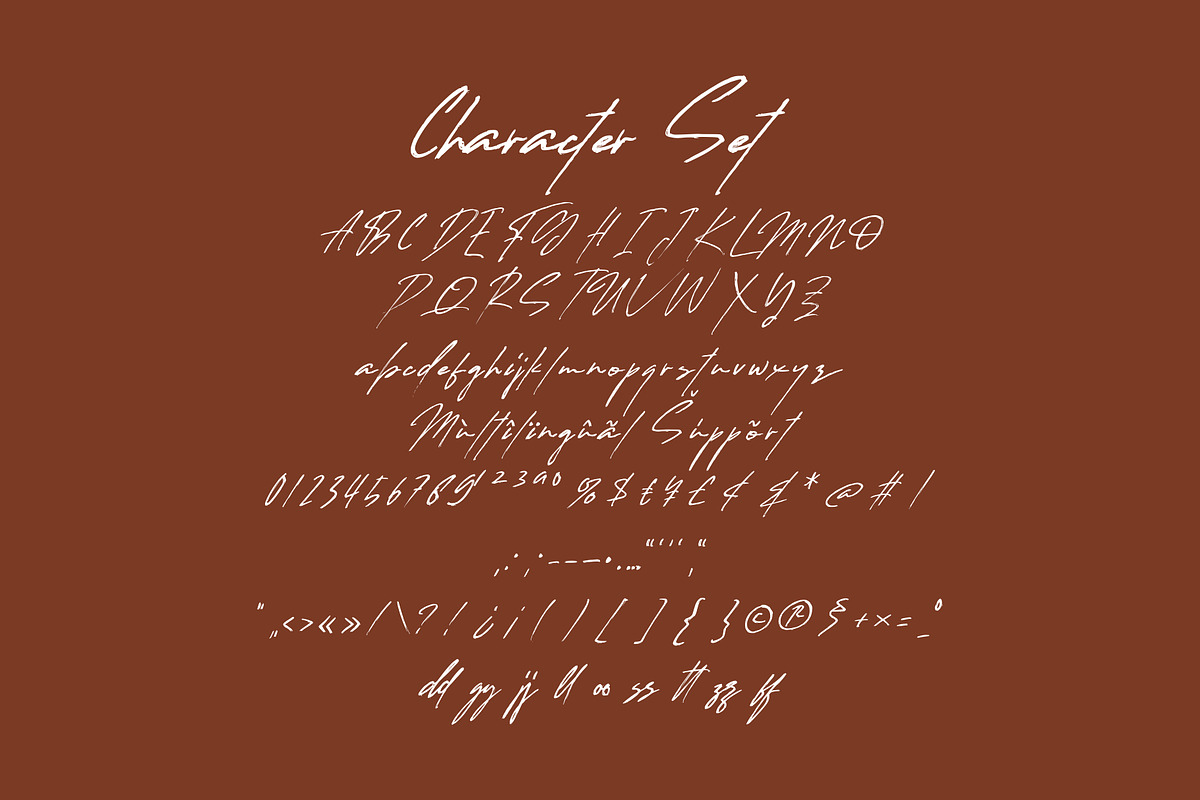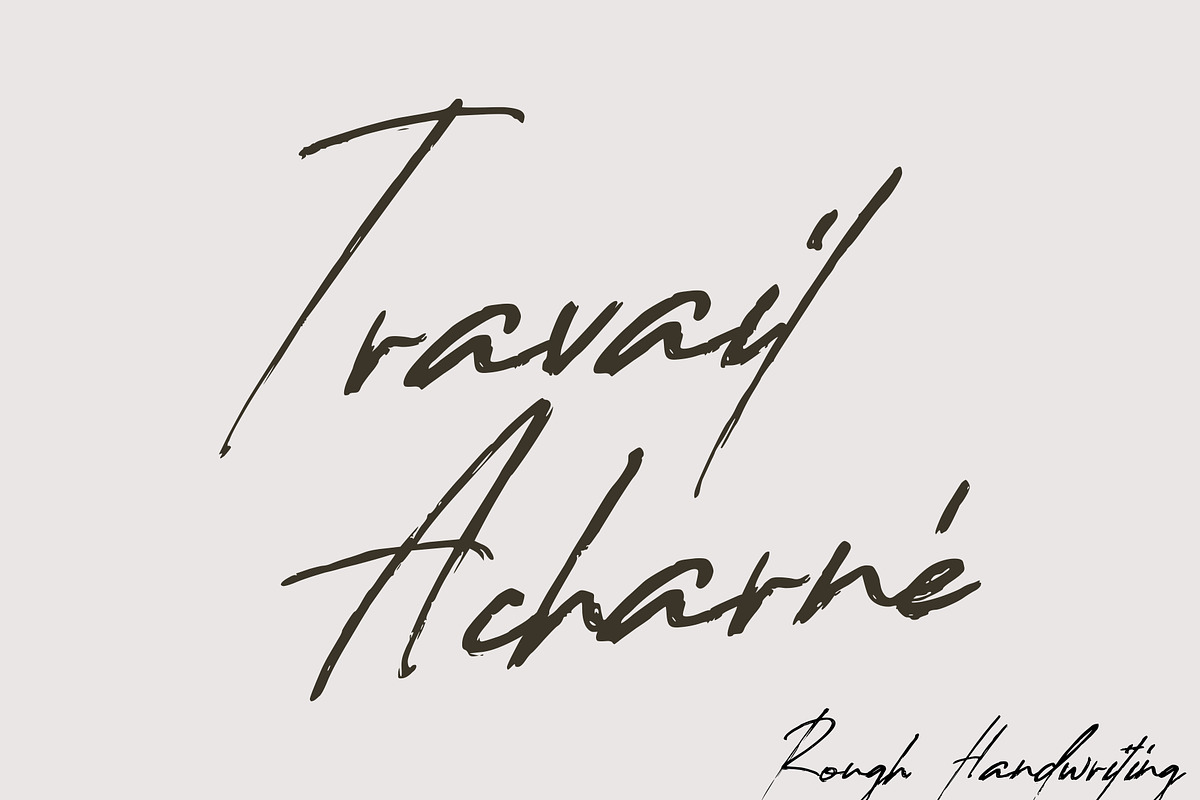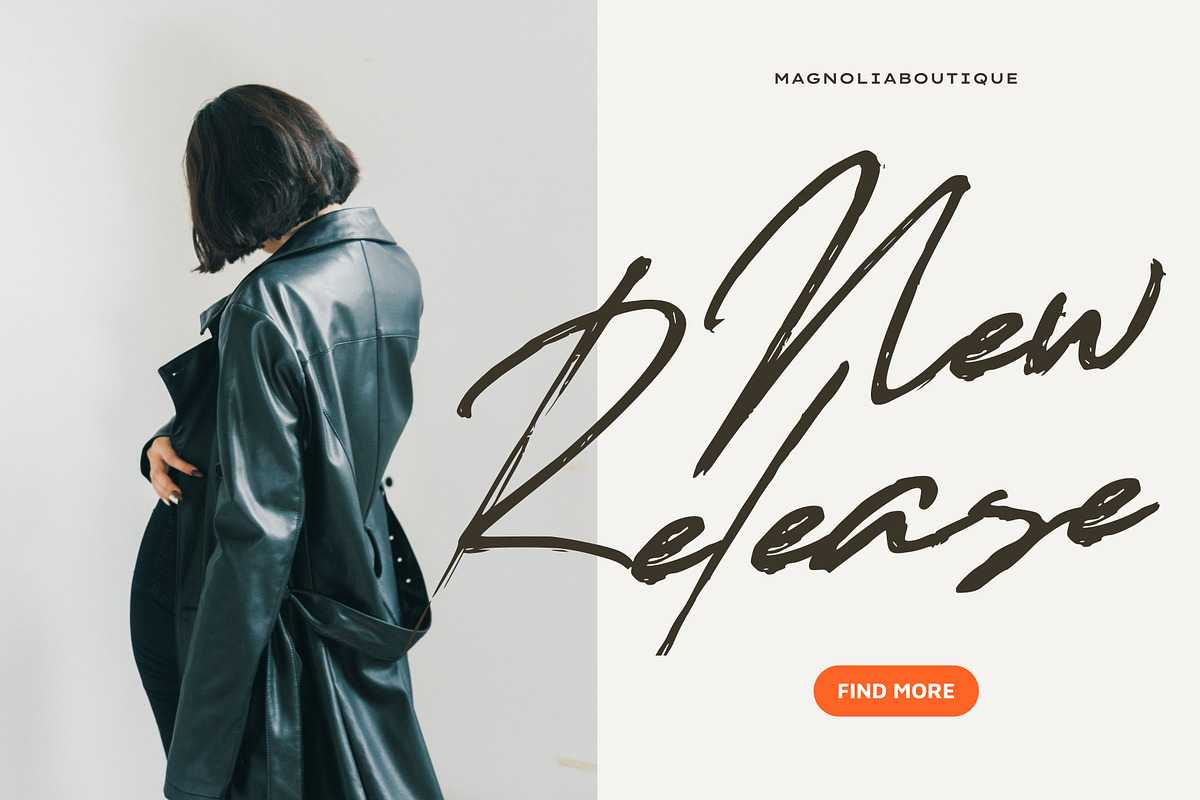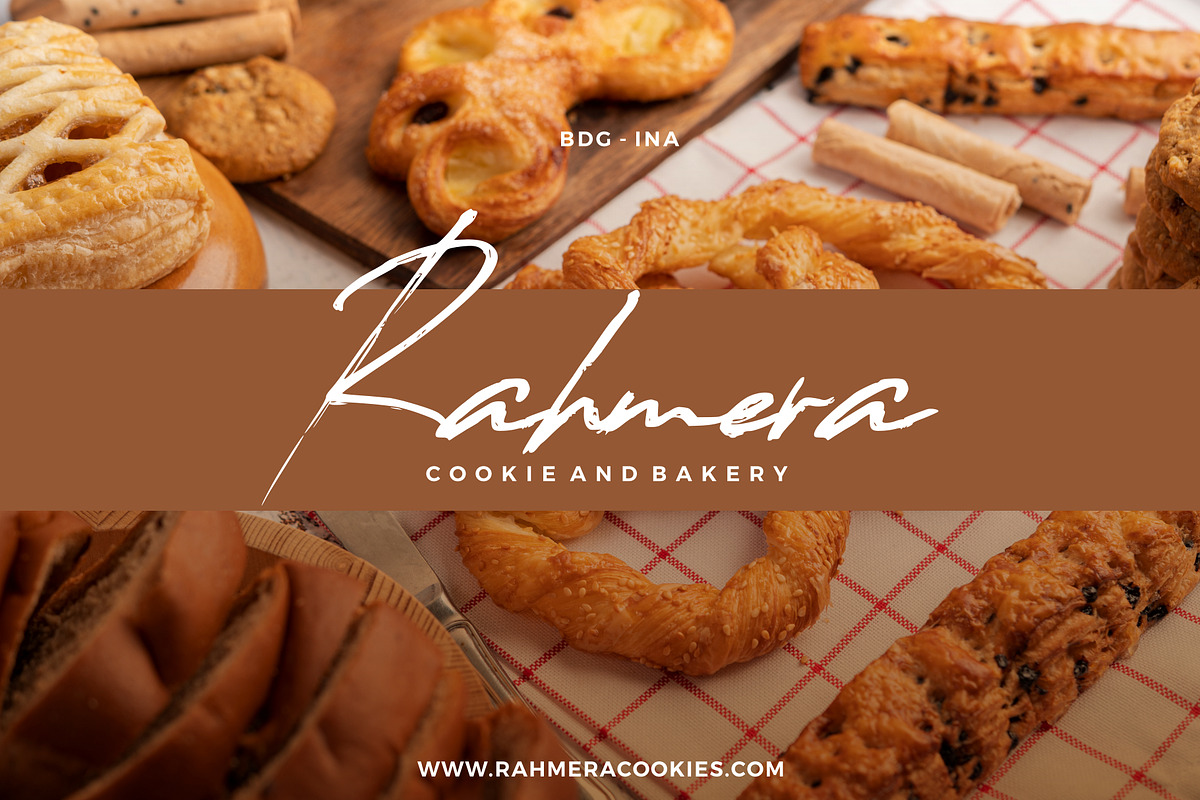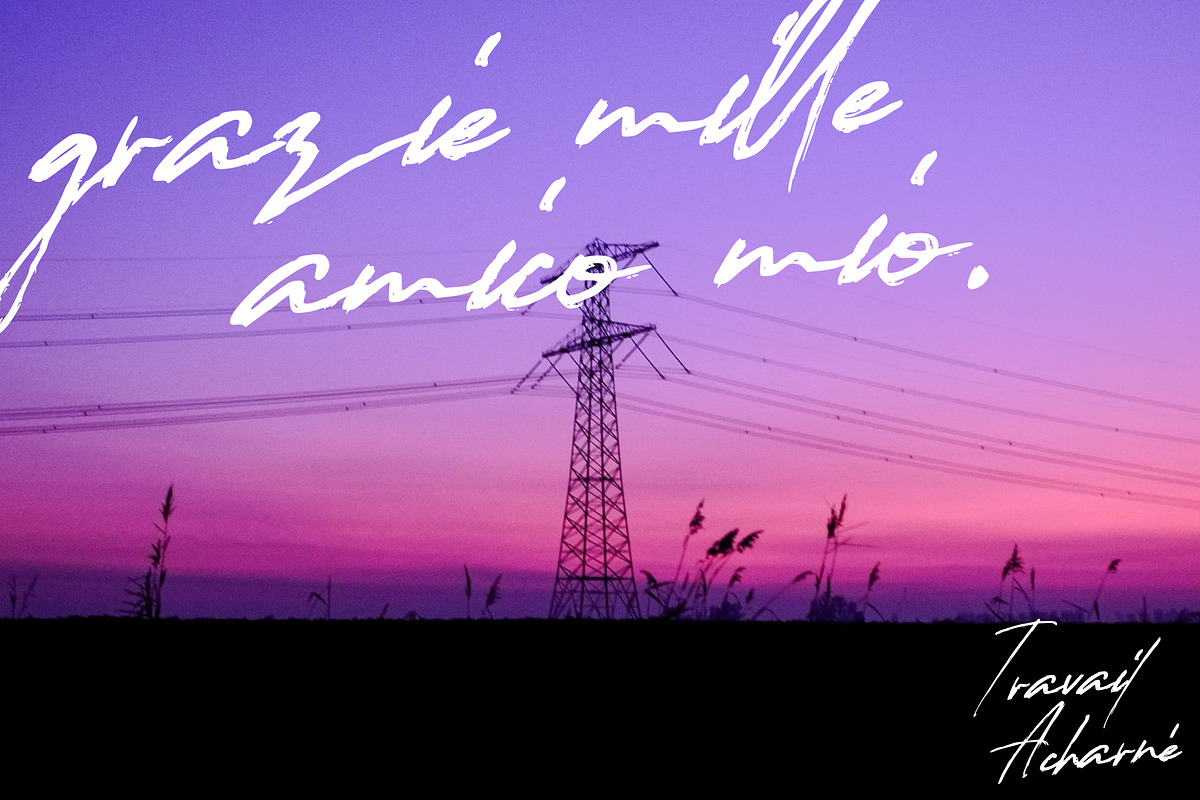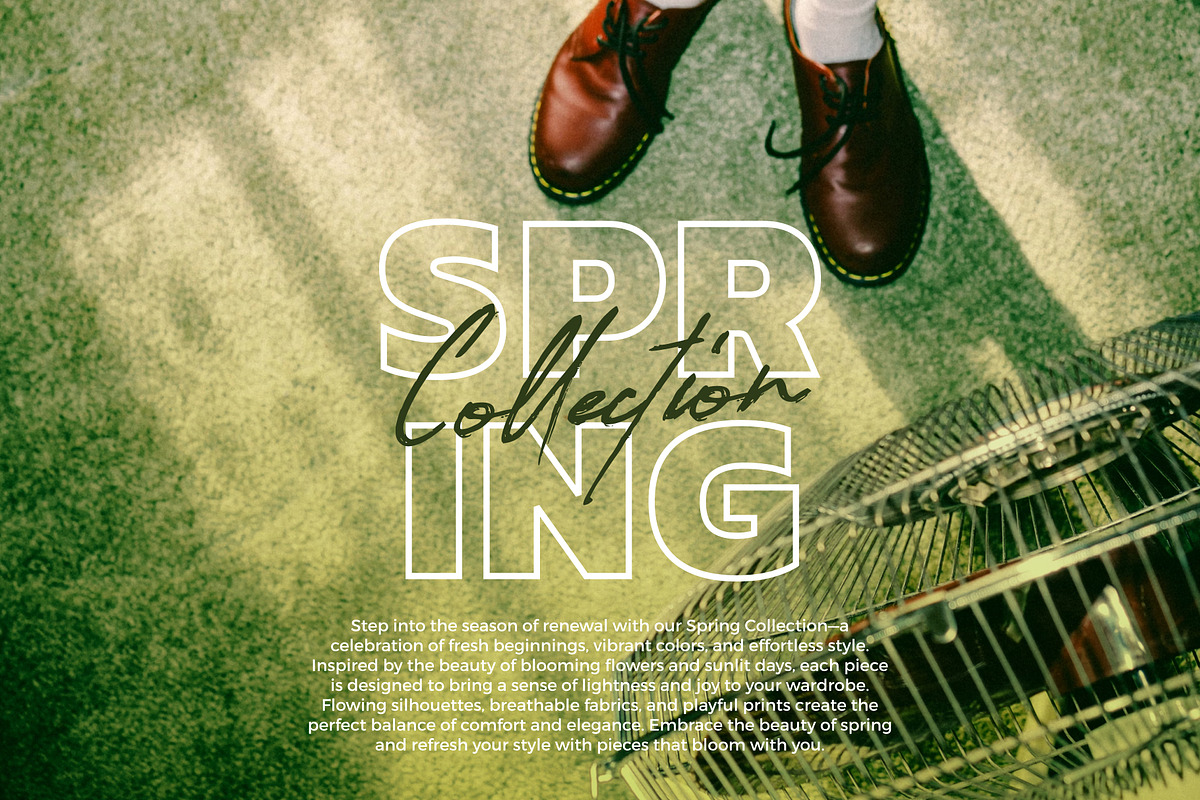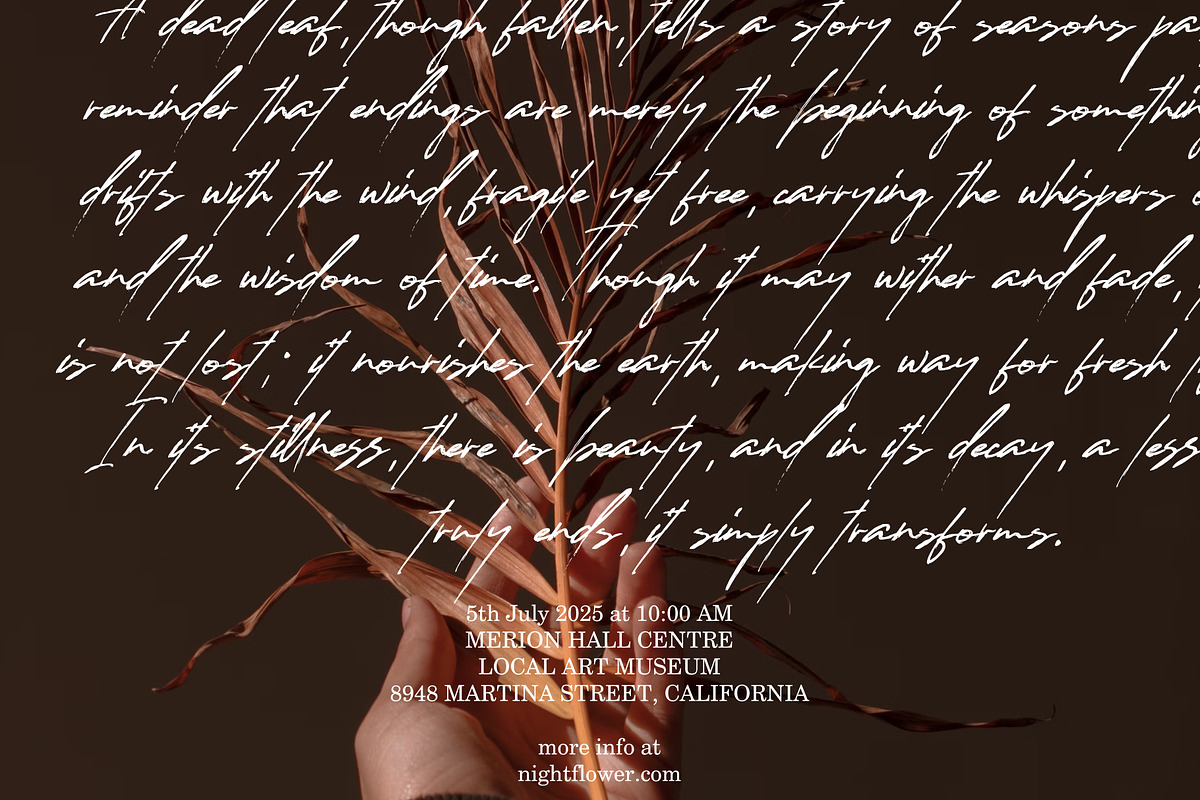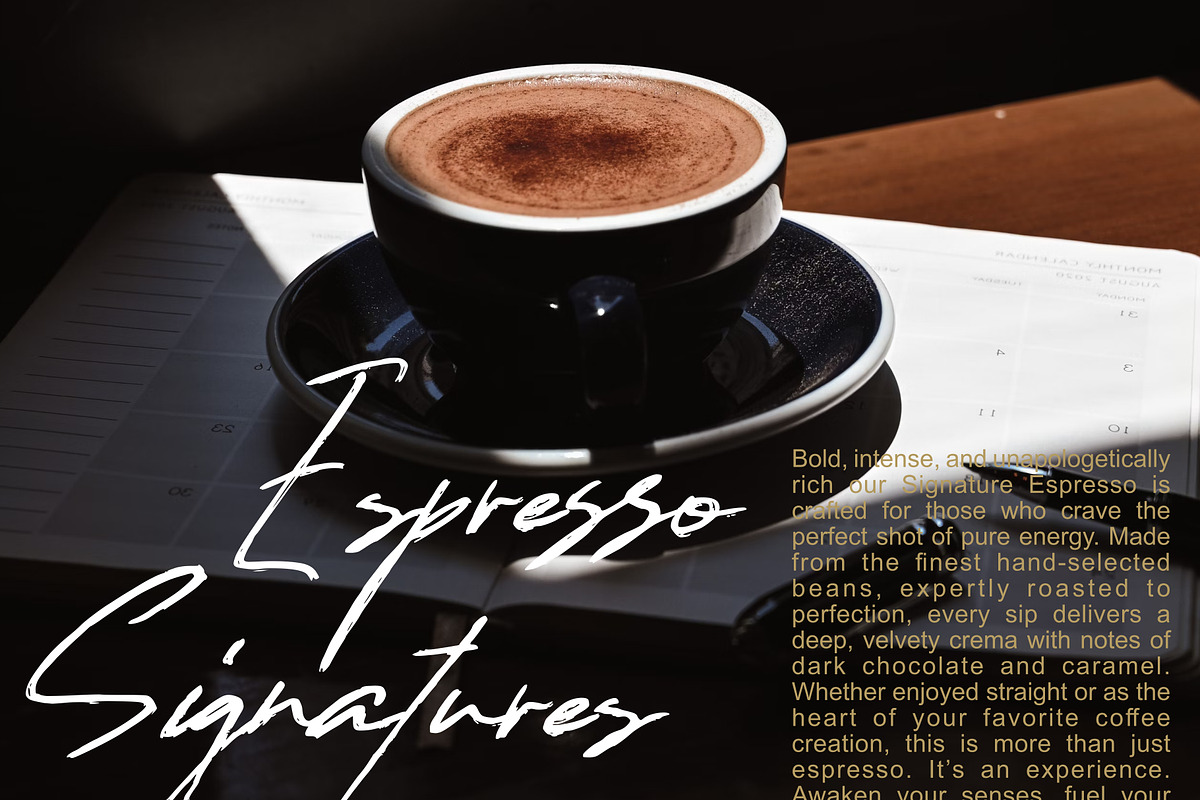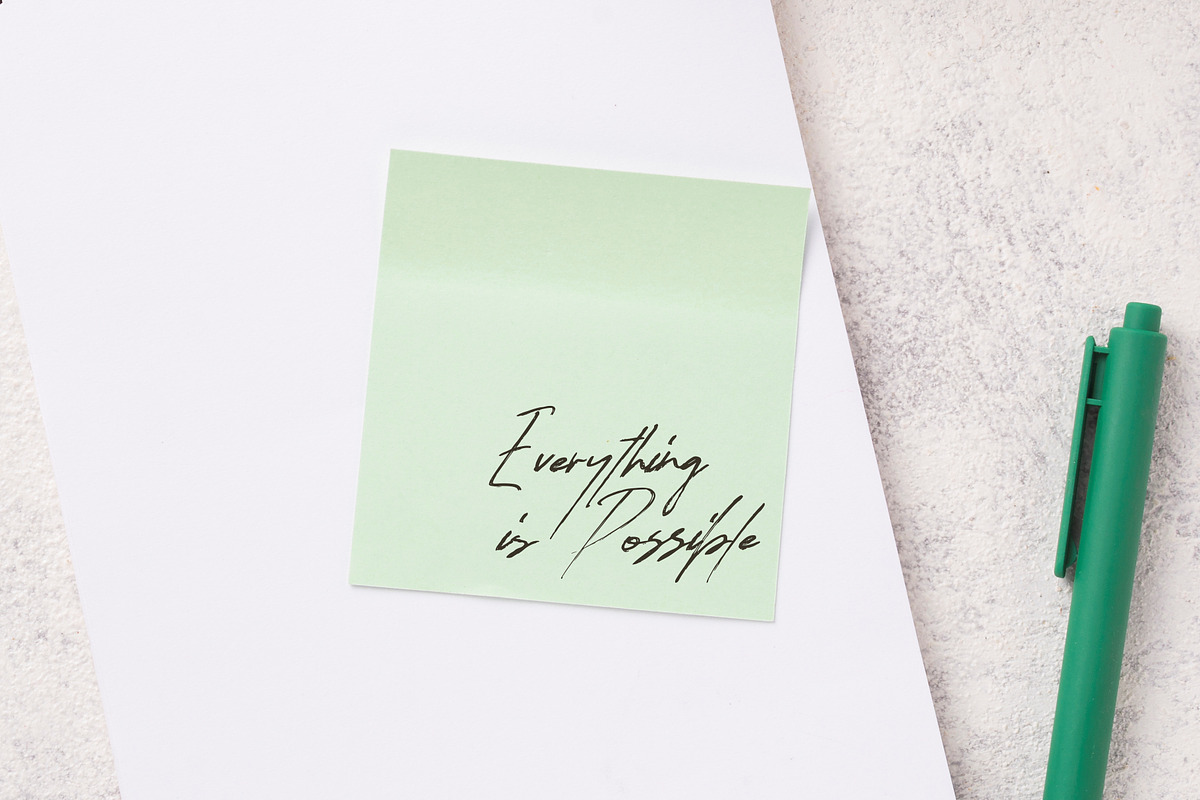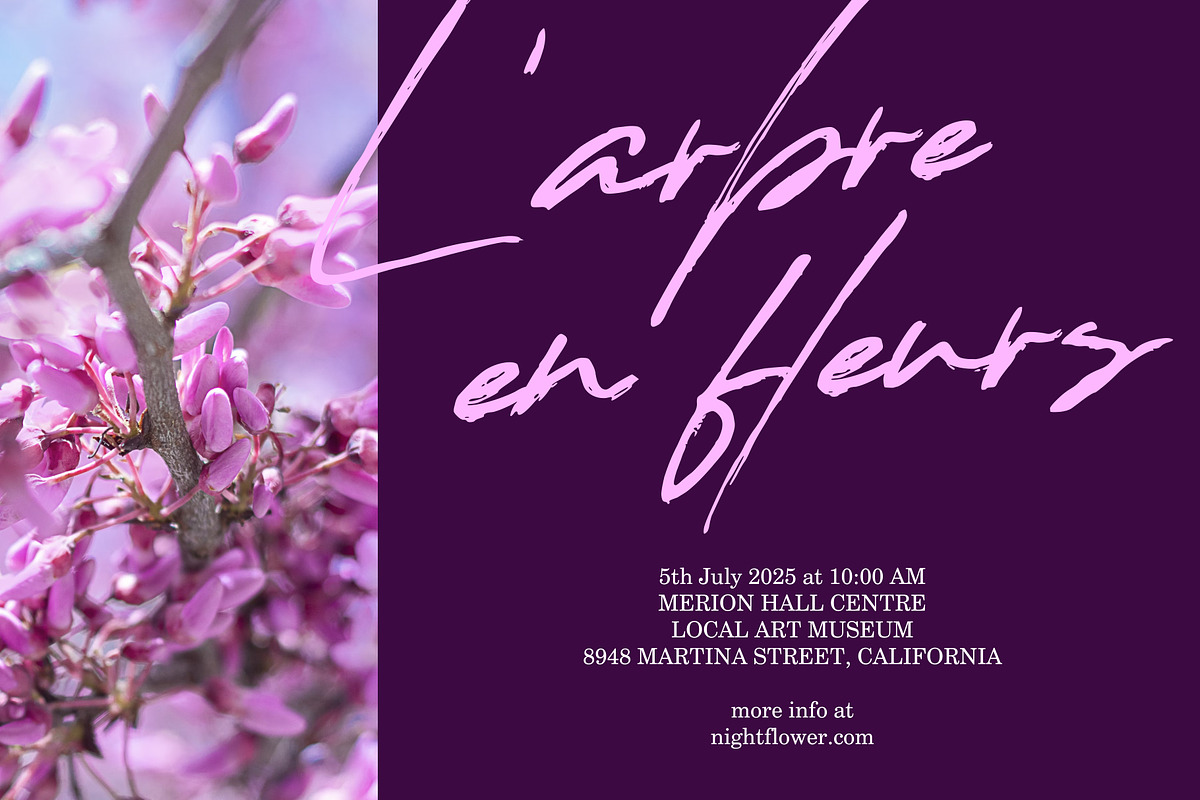
Travail Acharné – Rough Handwriting
Travail Acharné – Rough and Rugged Handwriting Font
Travail Acharné is a raw and expressive rough handwriting font, crafted with an untamed, hand-scanned feel. Its rugged strokes and organic imperfections bring an authentic, hardworking character to any design.
Perfect for logos, book covers, food & beverage branding, promotional campaigns, video titles, product packaging, quotes, posters, flyers, and impactful text overlays, Travail Acharné is the ideal choice for projects that demand a bold and handcrafted aesthetic.
- Raw, hand-drawn texture for an unfiltered, organic feel
- Bold and dynamic, perfect for attention-grabbing designs
- Adds a strong, expressive touch to any creative work